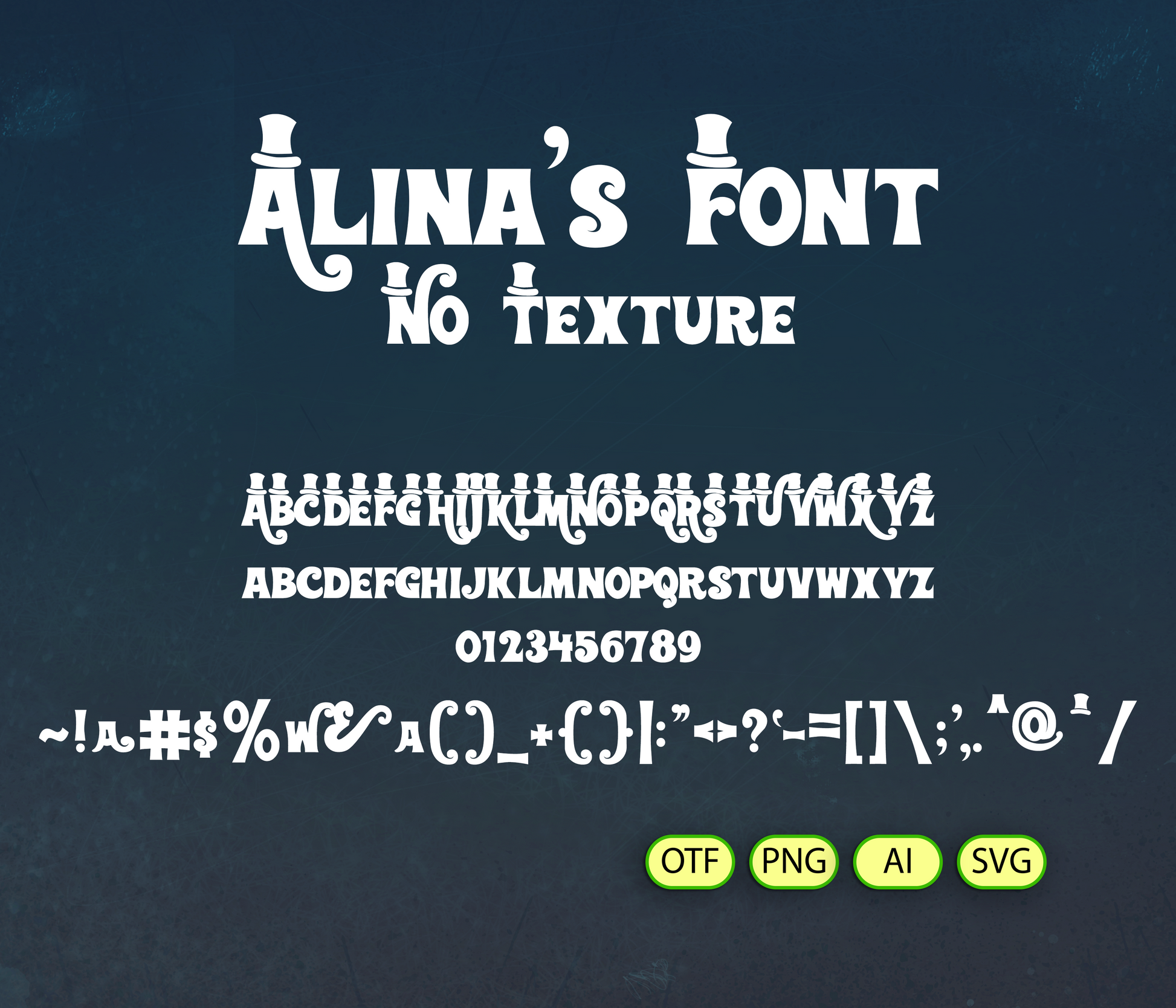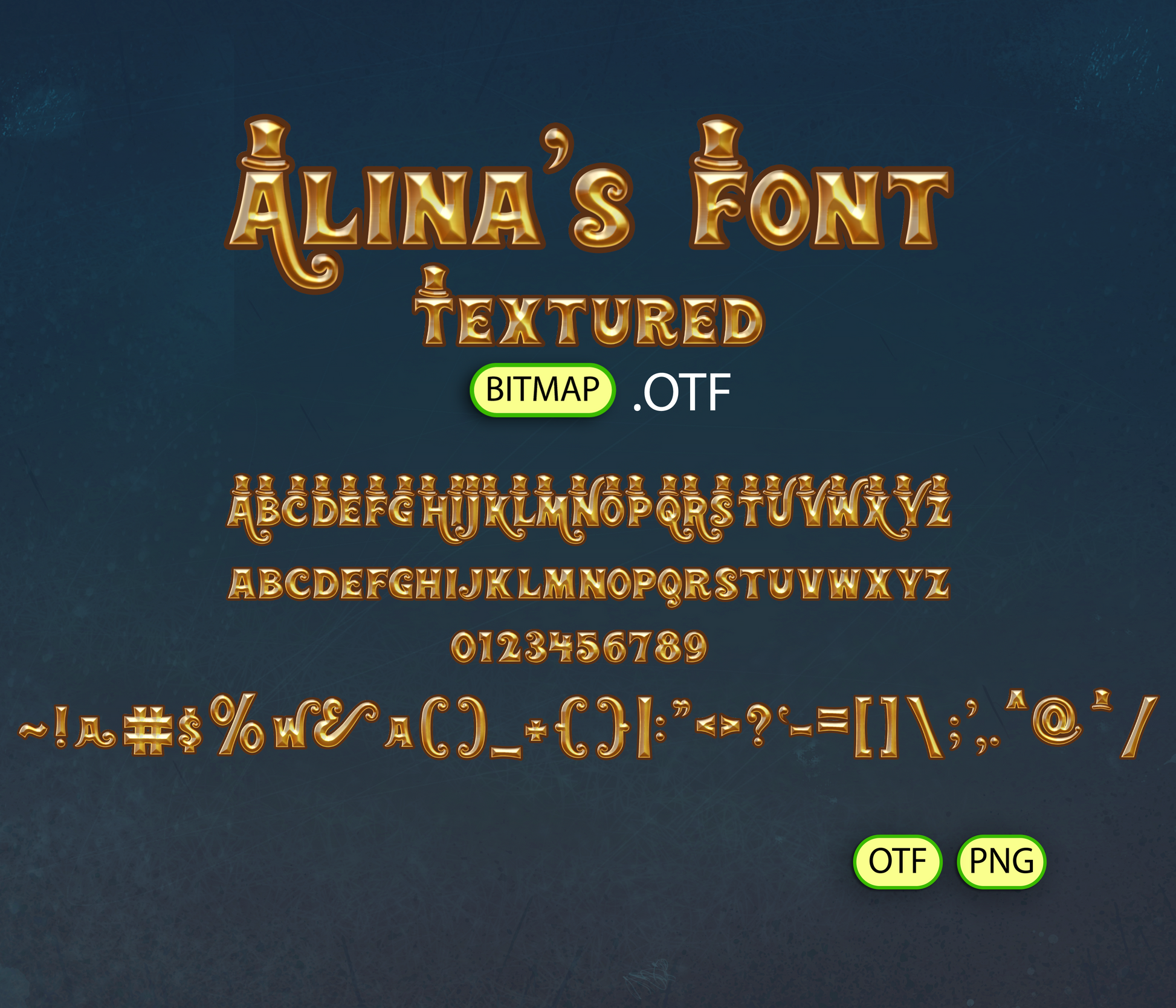
Whimsical Candymaker's Font Textured
Step into a world of pure imagination with our Whimsical Candymaker's font, inspired by the beloved tale of a magical chocolate factory and its eccentric owner. This font captures the essence of childlike wonder, colorful confections, and the fantastical realm of candy-making. Perfect for designers, event planners, and creatives looking to add a touch of sweetness and magic to their projects.
Our Whimsical Candymaker's font features playful, swirling characters that evoke the whimsy and charm of a fantastical candy factory. Ideal for:
The Whimsical Candymaker's font includes both textured and non-textured variants, ensuring compatibility with all design software, including Canva. This versatility allows for easy incorporation into designs for users of all skill levels.
Our font pays homage to the magical world of confectionery and imagination, empowering your designs with its playful and enchanting spirit. Whether you're creating promotional materials for a candy shop, designing invitations for a themed party, or adding a touch of whimsy to personal projects, this font communicates the joy and wonder of a world made of candy.